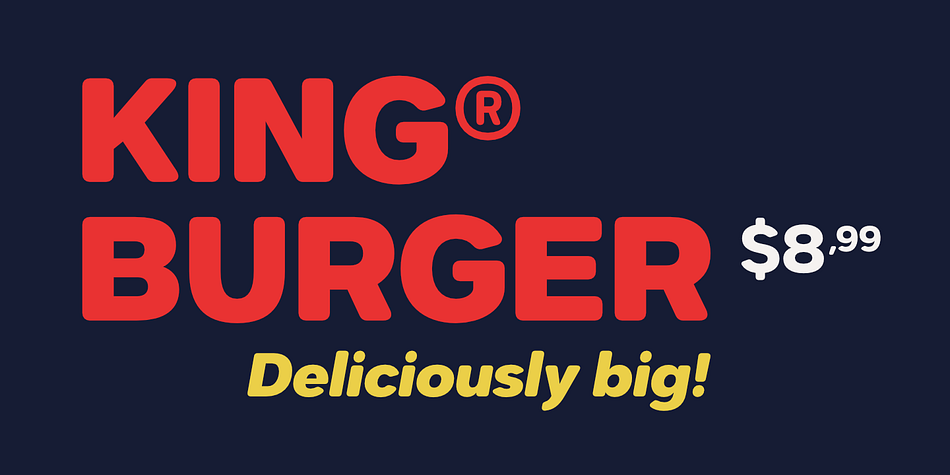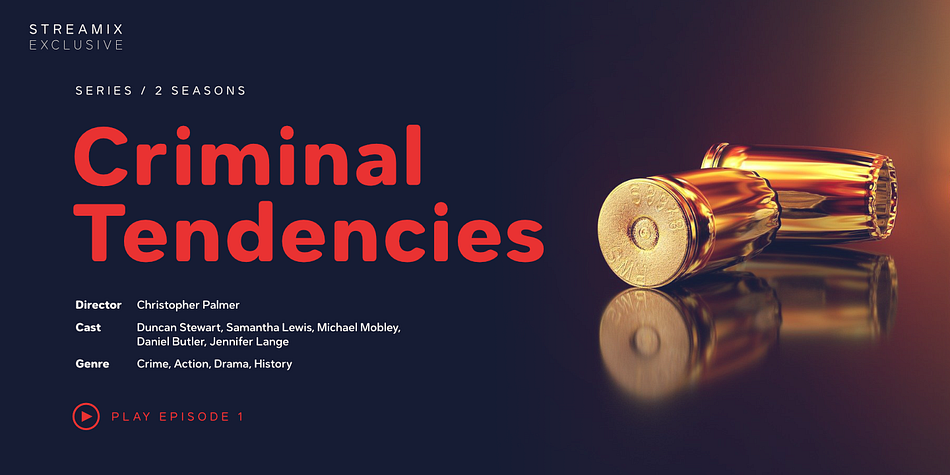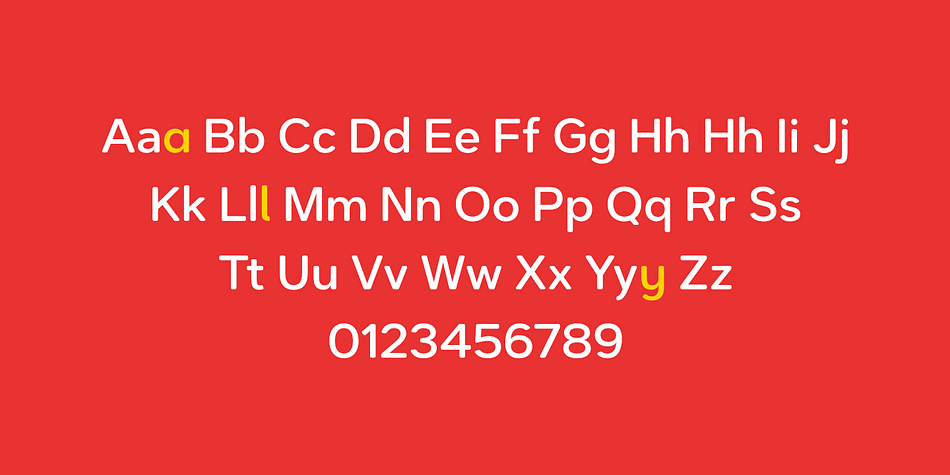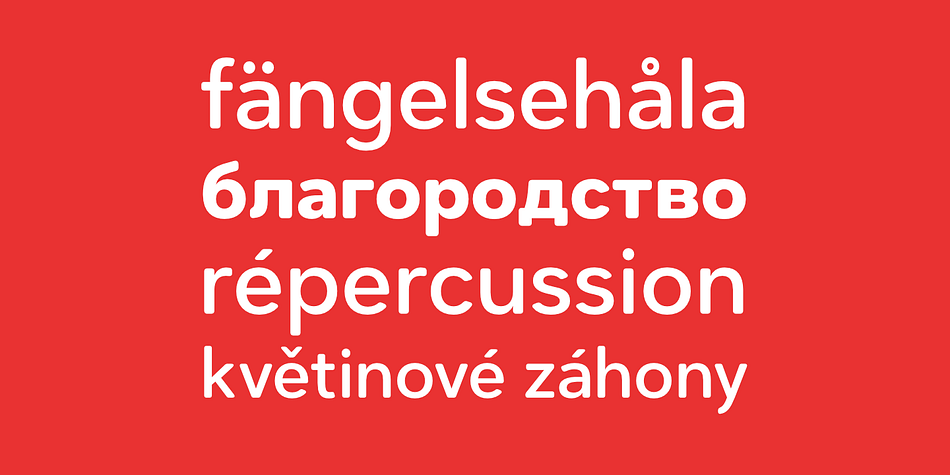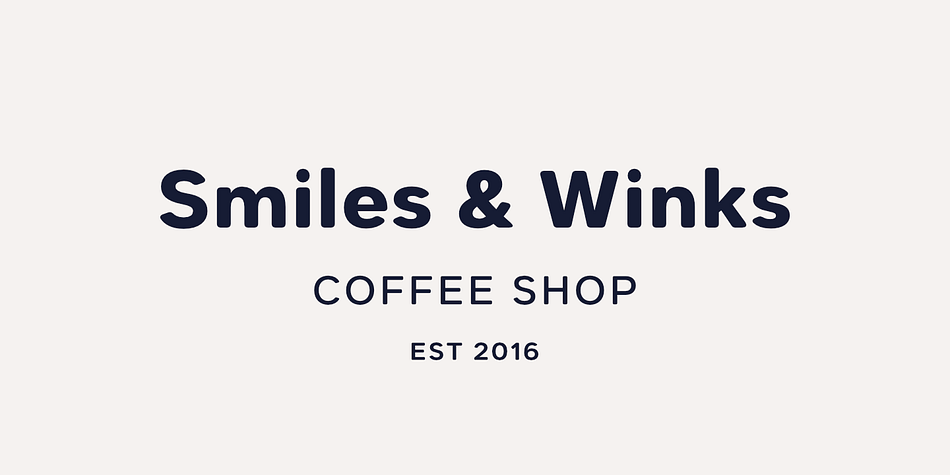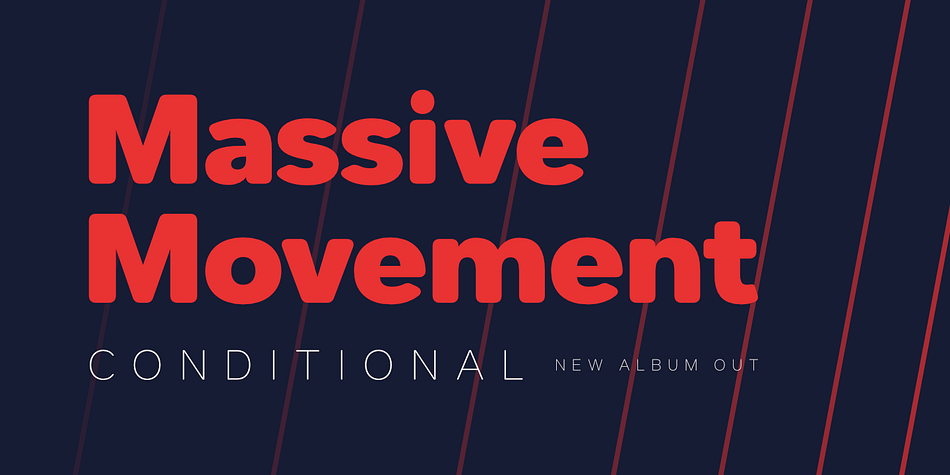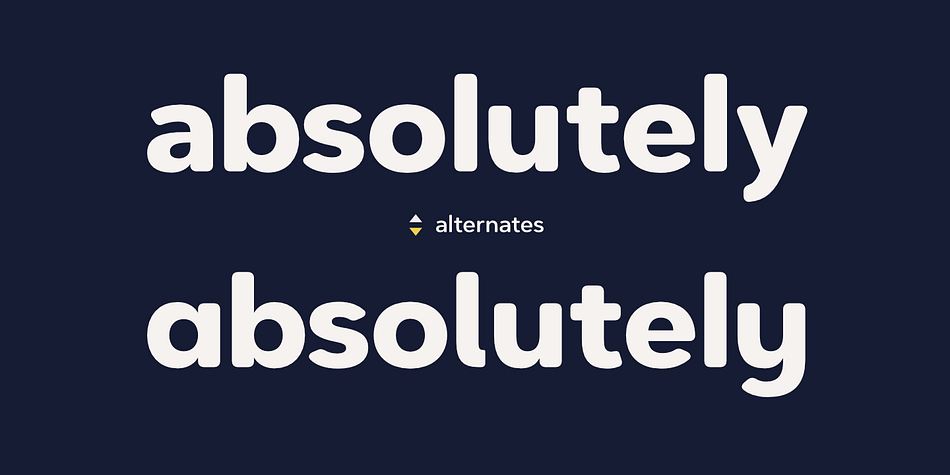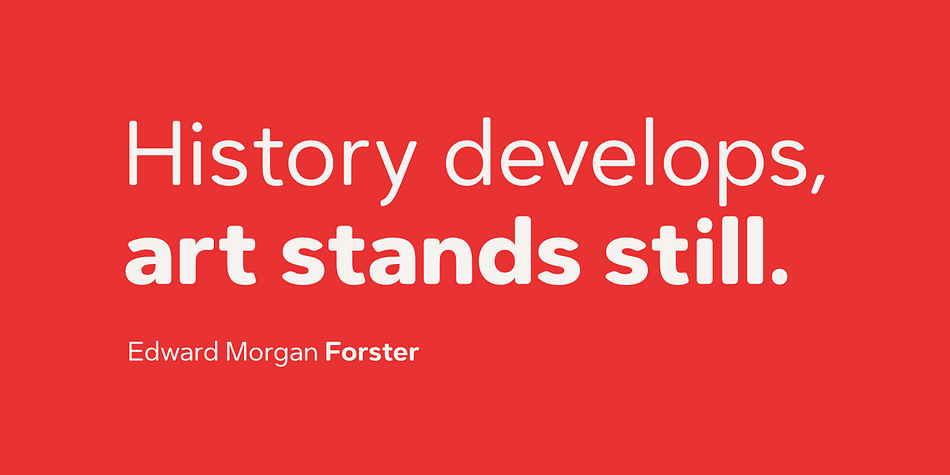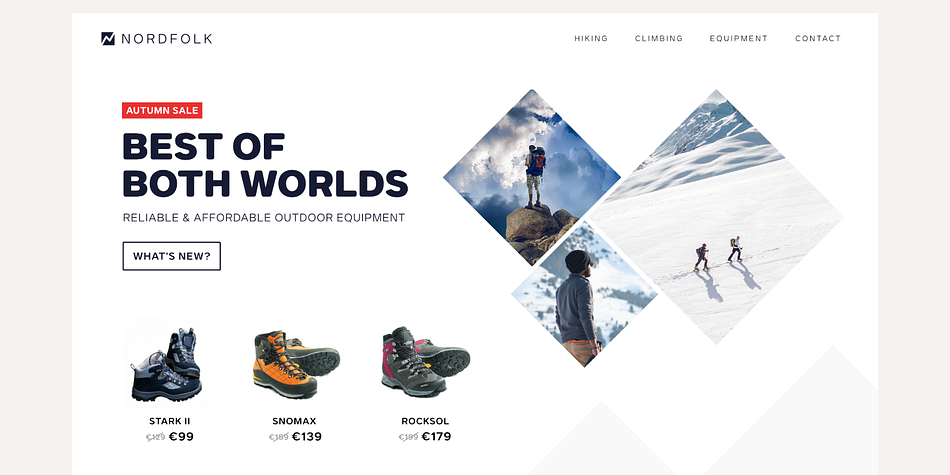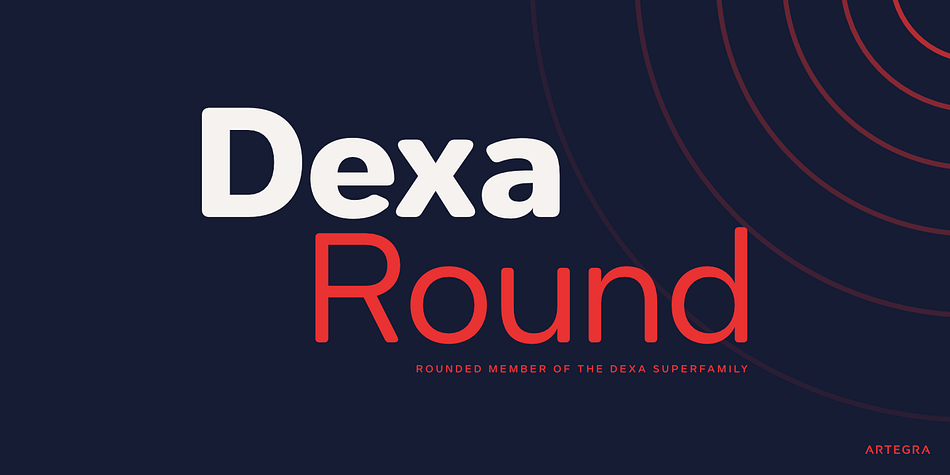
Dexa Round
Designed by Ceyhun Birinci, Dexa Round is a sans serif font family. This typeface has eighteen styles and was published by Artegra.
Dexa Round is the round cornered version of the Dexa Pro superfamily. It has 18 fonts with thin to black weights, along with their true italic counterparts. With more than 770 glyphs per font, It supports all the Latin languages as well as the Cyrillic ones.
OpenType features: small caps, caps to small caps, alternates, old style figures, tabular lining, old style tabular lining, language localizations, ligatures, superscript, subscript, numerators, denominators, fractions, historical forms.